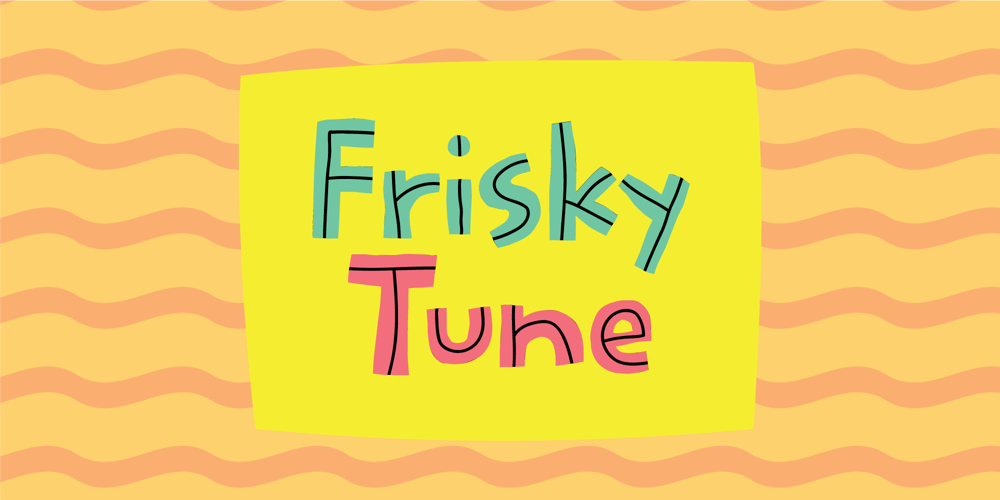
Frisky Tune Font Family was designed by Jakob Fischer and published by PizzaDude.dk. Frisky Tune contains 2 styles and family package options. Energetic, handmade superfly comic font, ready to party like a crazy cheese! Ready to ride and glide, just like a dream and sweet like cherry and cream!Wow, what a lot of nonsense – but maybe still you got the point: Frisky Tune is waiting to make your text just a little more funky, than other ordinary comic fonts!